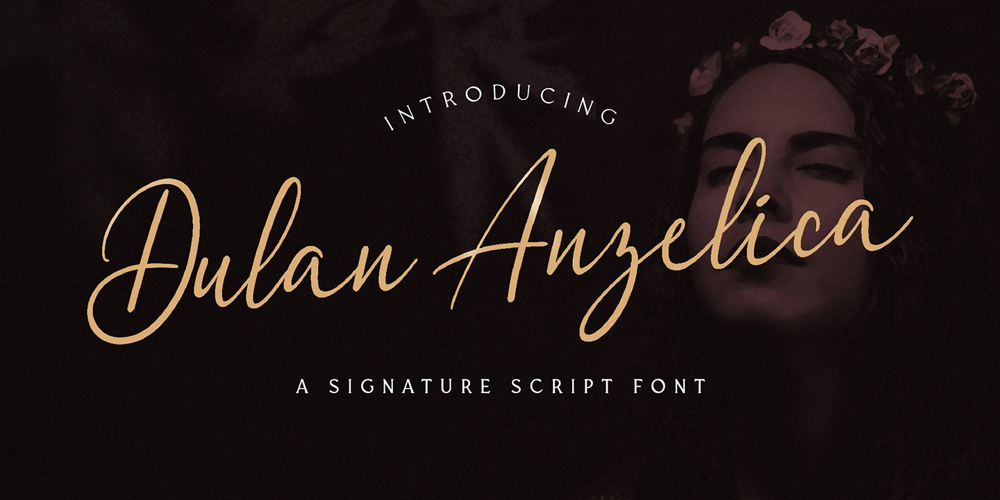
Dulan Anzelica Font Family was designed by Virgiawan Listanto and published by Stringlabs Creative Studio. Dulan Anzelica contains 1 styles and family package options. Dulan Anzelica simplifies elegance into one truly outstanding script font. This font is the perfect fit for all of your logos, branding, social media, and crafty DIY projects.